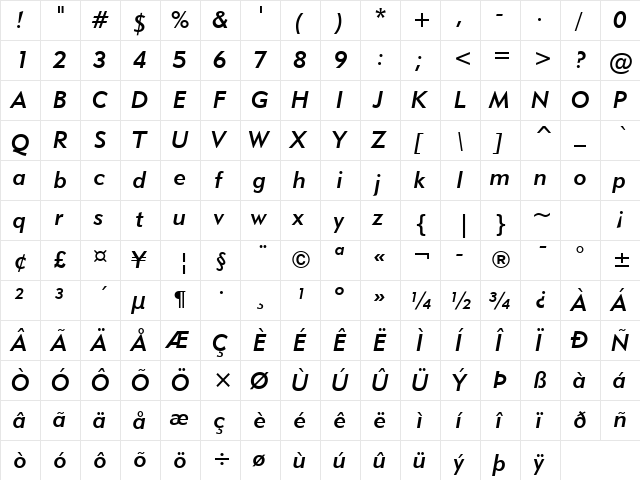
Geometr415 Md BT Medium Italic
Design Context for Geometr415 Md BT Typeface
Geometr415 Md BT takes a measured approach to typography — its balanced proportions and neutral character make it a reliable workhorse for both digital and print work. The slanted form adds forward momentum and visual energy.
Pro Tip: Try Geometr415 Md BT for annotation and caption copy alongside an upright companion — the contrast in angle creates a dynamic but ordered typographic system.